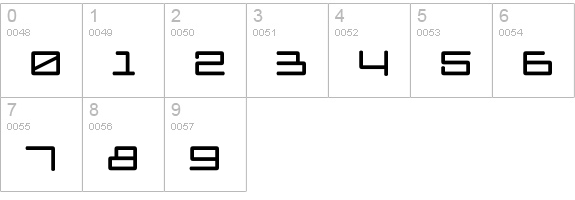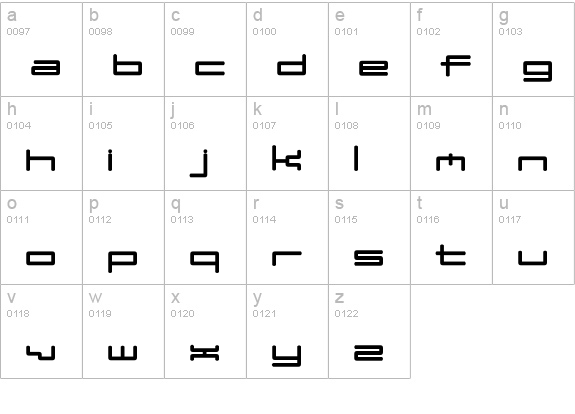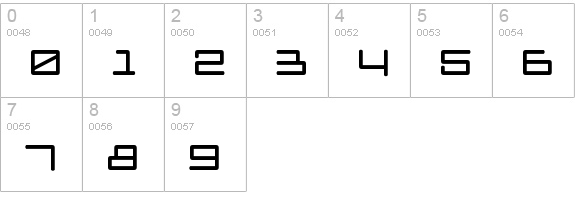
D3 PipismW Font Details
D3 PipismW is a phenomenal font that combines elegance and playfulness, making it the perfect choice for any creative project. With its unique and eye-catching design, this font is sure to captivate and engage your audience. The beauty of D3 PipismW lies in its versatility. Whether you're designing a logo, creating a poster, or crafting a social media graphic, this font will effortlessly enhance your work, adding a touch of personality and charm. With a wide range of characters and glyphs, D3 PipismW offers endless possibilities for customization. Its smooth curves and clean lines create a harmonious visual experience, ensuring that each letter seamlessly flows into the next. But what truly sets D3 PipismW apart is its accessibility. This font is available for free, allowing artists, designers, and enthusiasts alike to enjoy its remarkable features without any cost. You can easily download D3 PipismW at FontsMarket.com, a trusted platform that offers a vast library of fonts for all your creative needs. So why wait? Unleash your creativity and elevate your designs with D3 PipismW. Whether you're a professional designer or a passionate hobbyist, this font will undoubtedly become an invaluable asset in your creative toolkit. Download it today and experience the limitless possibilities that D3 PipismW has to offer.